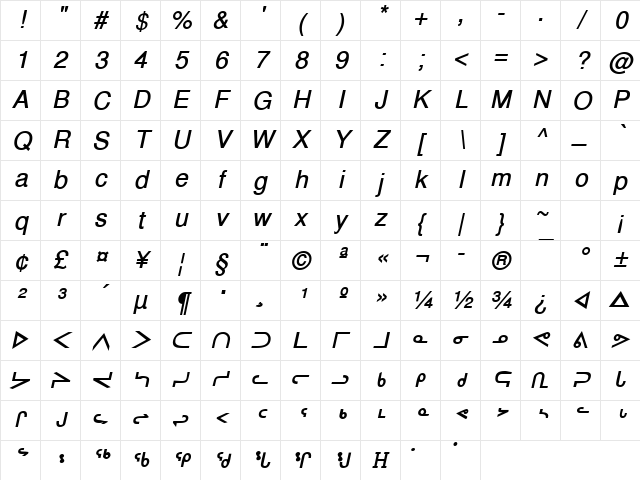
InuktitutSSK BoldItalic
Design Context for InuktitutSSK
InuktitutSSK is a composed and adaptable typeface that performs quietly and consistently across a wide range of design contexts. The slanted form adds forward momentum and visual energy. Its bold stroke weight gives it real presence on the page.
Pro Tip: Use InuktitutSSK for emphasis, pull quotes, and subheadings where its slanted energy can add rhythm to the layout.